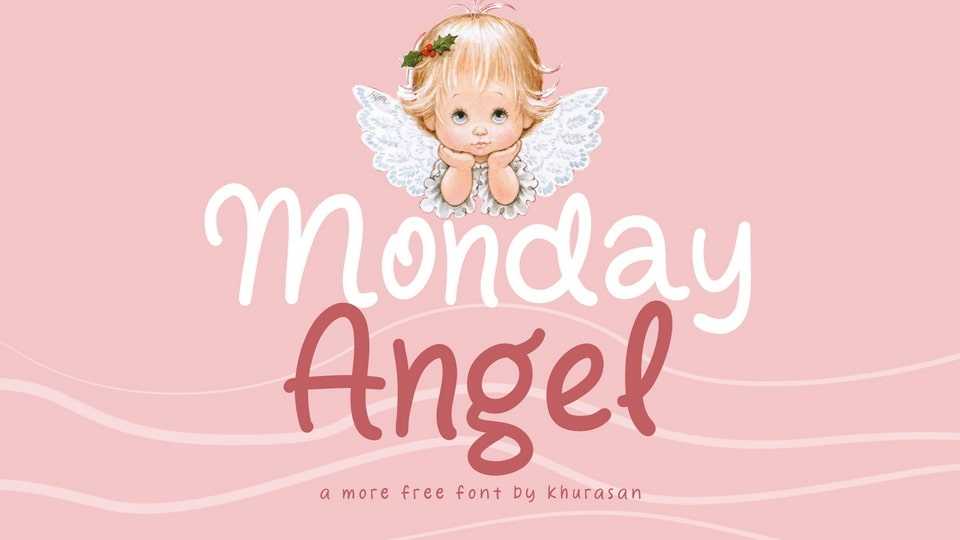
Download Monday Angel font, a cute handwritten typeface that radiates joy and playfulness with every stroke. Each character is lovingly crafted with whimsical curls, playful loops, and charming imperfections, making Monday Angel font perfect for designs that want to convey a sense of lightheartedness and carefree spirit.